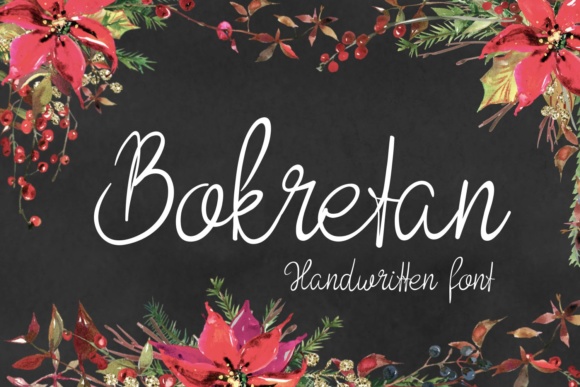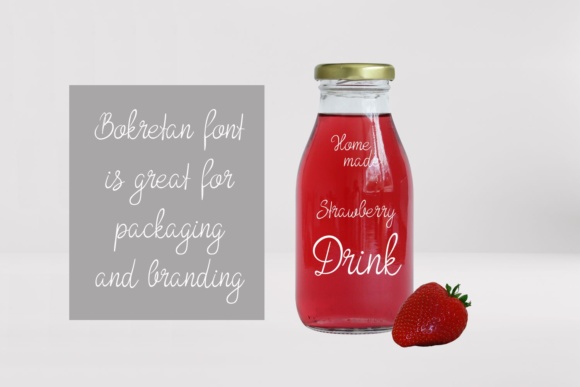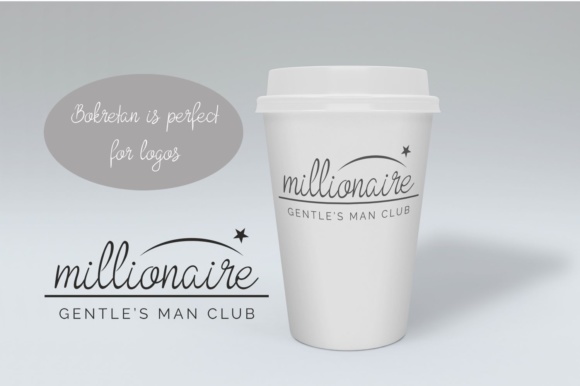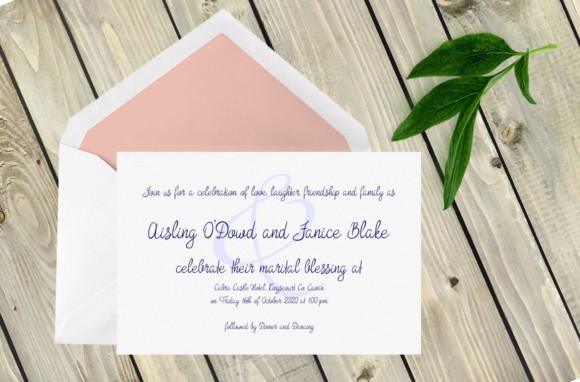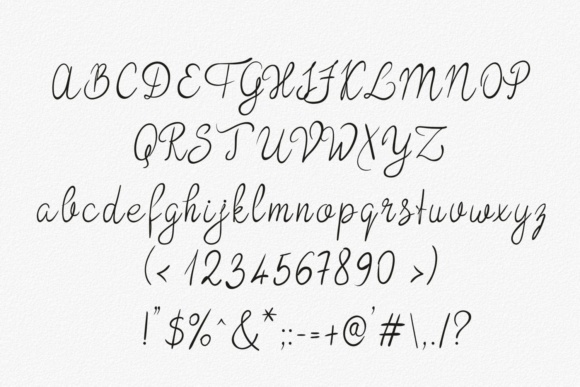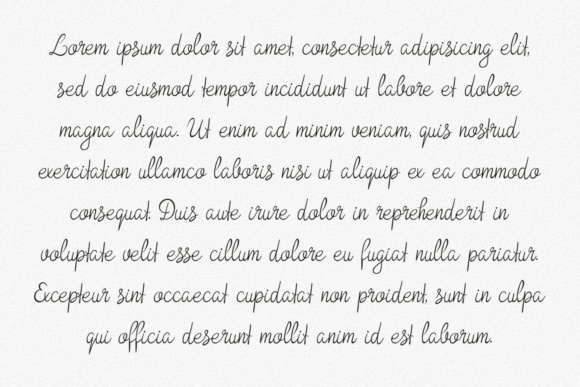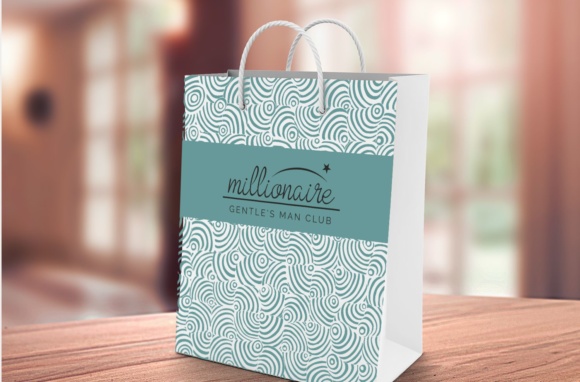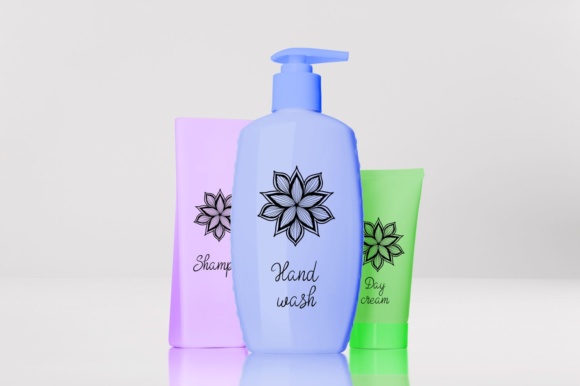
HomeScript FontsBokretan Font Script Fonts Bokretan Font FacebookXPinterestWhatsApp Bokretan Font Poster 2 Bokretan Font Poster 3 Bokretan Font Poster 4 Bokretan Font Poster 5 Bokretan Font Poster 6 Bokretan Font Poster 7 Bokretan Font Poster 8 About Bokretan Font Bokretan is a light girly handwritten font. Great for logos, branding, packaging and more. DOWNLOAD ON CREATIVE FABRICAThis font is sold and delivered by Creative Fabrica. Font Canyon may earn a commission if you buy through this link. People also explored Me and You Font The Beauty and Shine Font Bhagkuan Font Flora Notes Font Rossellina Kryfoas Font Wonder Wolf Font White Honey Duo Font Lowba Laylla Font 331 0 TagsBokretan Font Previous articleYoga Master FontNext articleLilytulip Script Font LEAVE A REPLY Cancel reply Comment: Please enter your comment! Name:* Please enter your name here Email:* You have entered an incorrect email address! Please enter your email address here Website: Save my name, email, and website in this browser for the next time I comment. Personal Use Free Hollster Personal Use Free Read more about this font Gdynia Personal Use Free Read more about this font Cokobi Personal Use Free Read more about this font Equalizer Script Personal Use Free Read more about this font BLOG Free vs Paid Fonts: Why Investing in Premium Fonts Is Worth It Free vs Paid Fonts: Why Premium Fonts Are Worth It in 2025 The debate of free vs paid fonts continues in the design world. While... How to Cut Any Font on Cricut: Convert a Font to SVG (Free) 5 Fonts That Will Dominate Design Trends in 2026 Exploring Font Trends